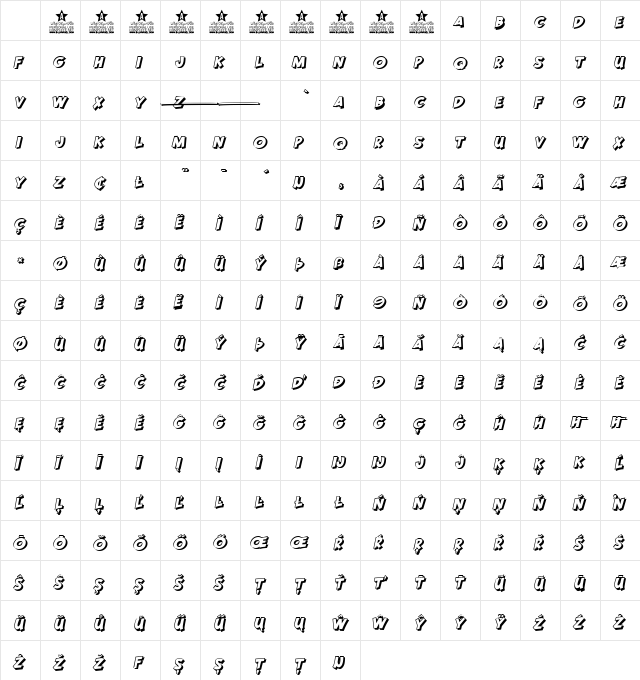
Complete SIMPLICITY SHADOW PERSONAL USE Regular glyph index. Displaying only characters natively supported by SIMPLICITY SHADOW PERSONAL USE Regular font.
SIMPLICITY SHADOW PERSONAL USE is built around its visual character rather than neutral utility - its distinctive forms are designed to make an impression at display sizes.